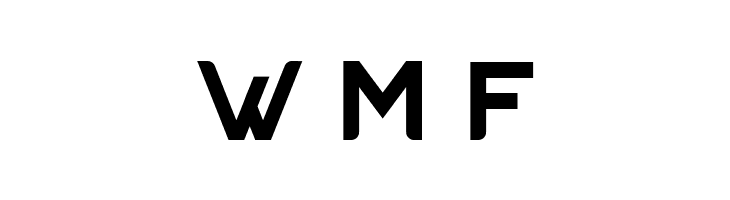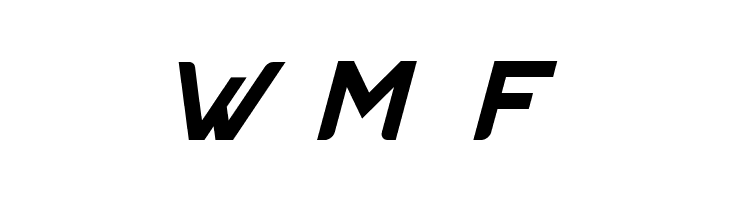
( Fonts by Bumbayo Font Fabrik )
A bold, geometric font with a modern and sleek design.
A modern, italicized font with bold strokes and a dynamic style.